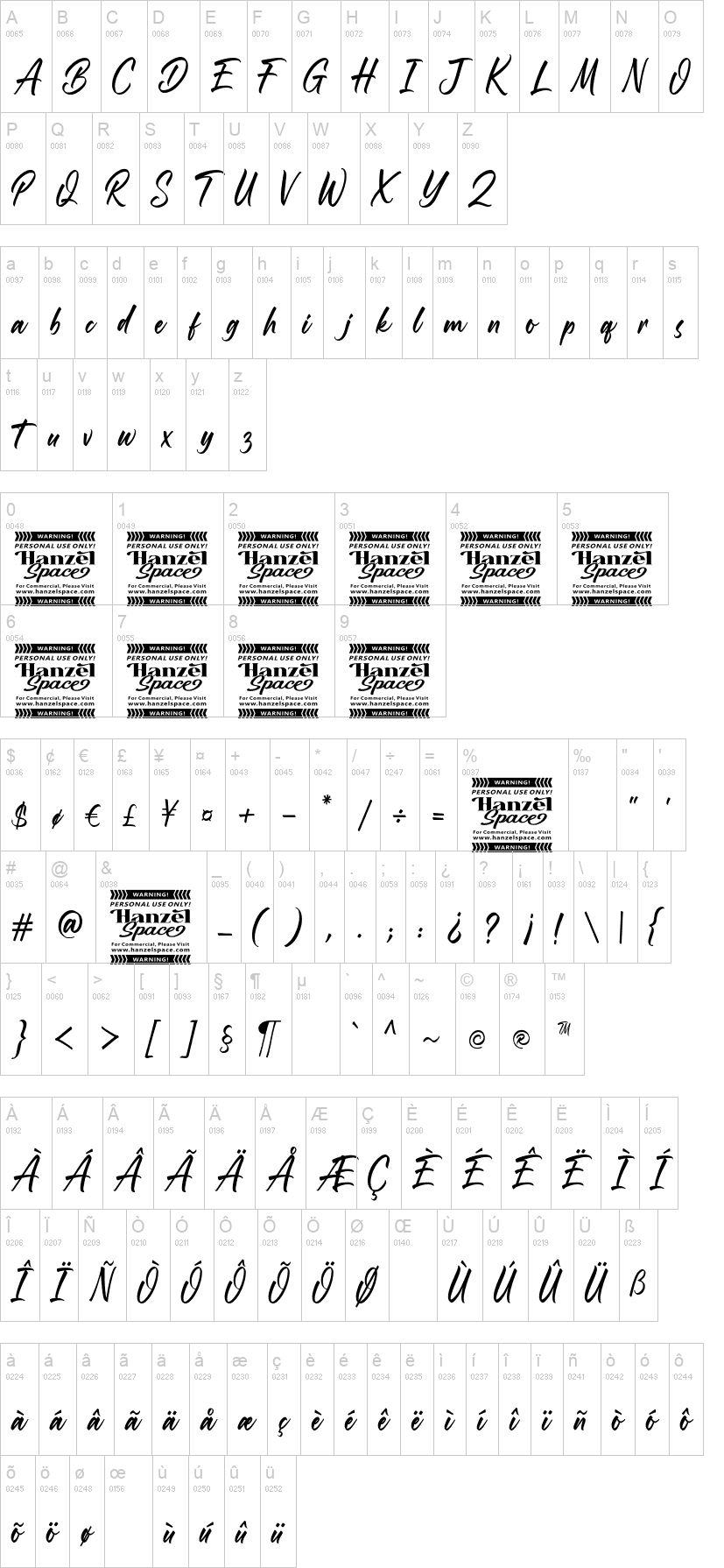
Note of the authorRoasting Script Handwritten Font. Made from natural pen.
it will make your design project more beautiful.
The font is suitable for any design like branding, logo, tagline, fashion,
print template, quotes, wedding and etc.